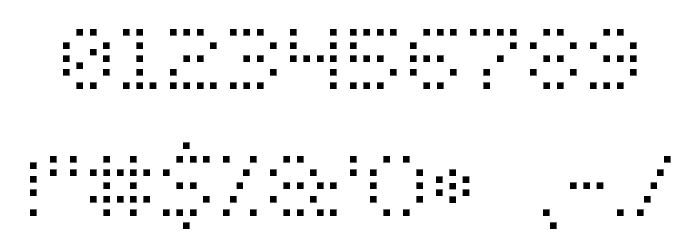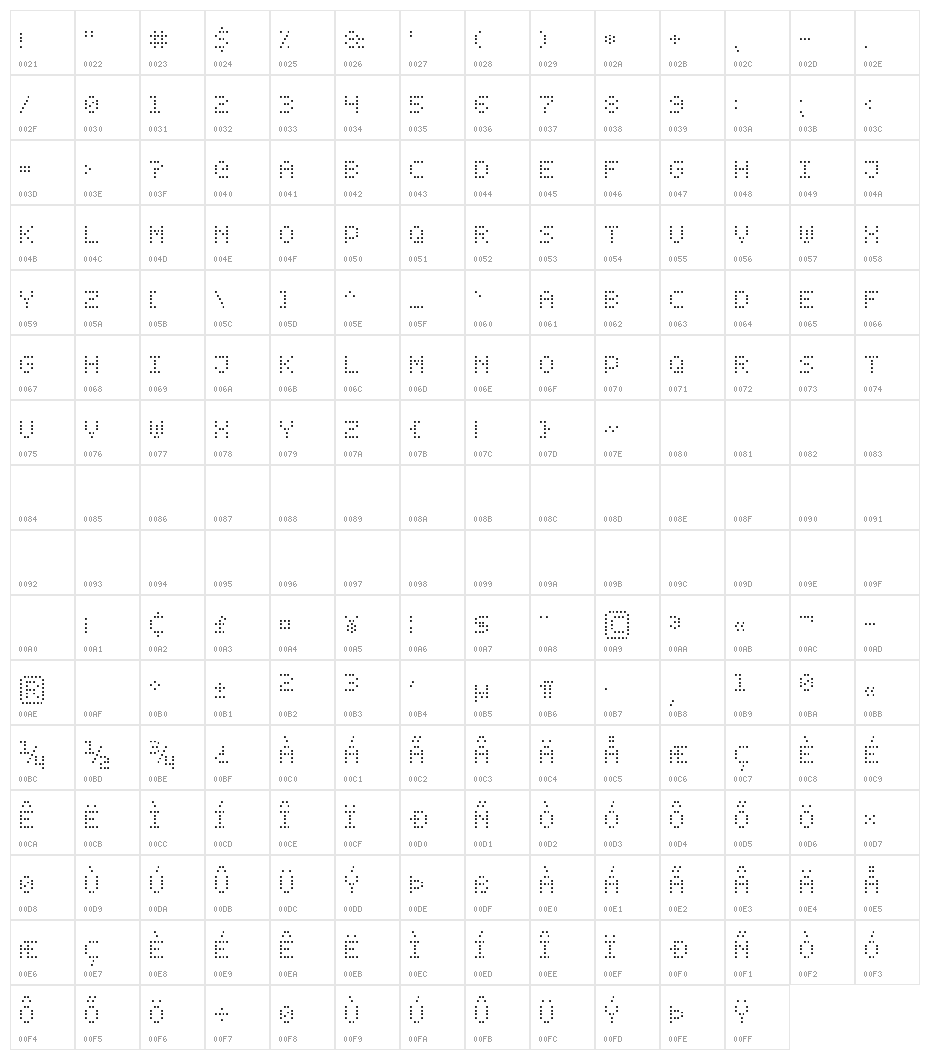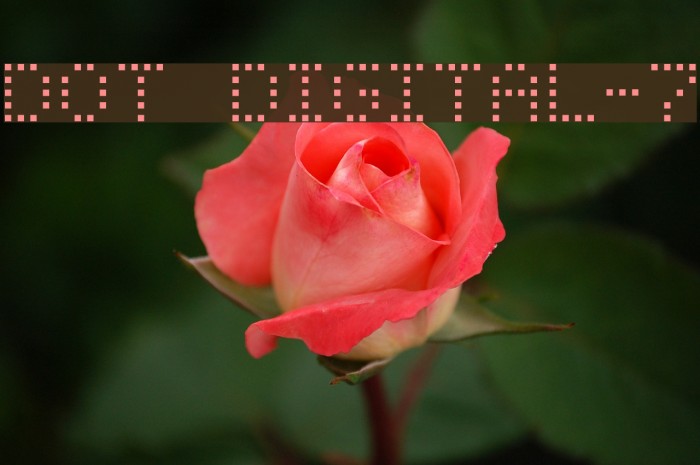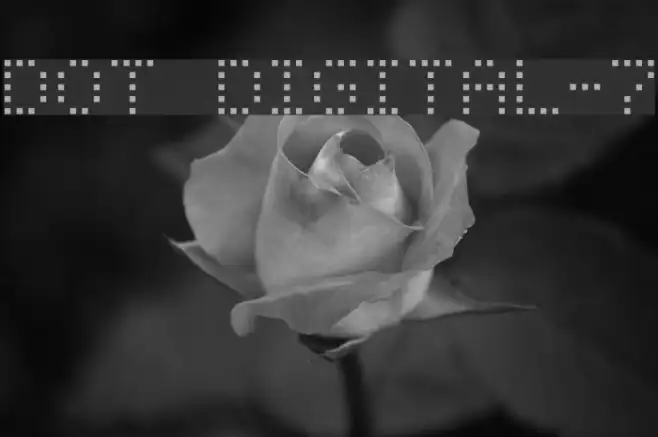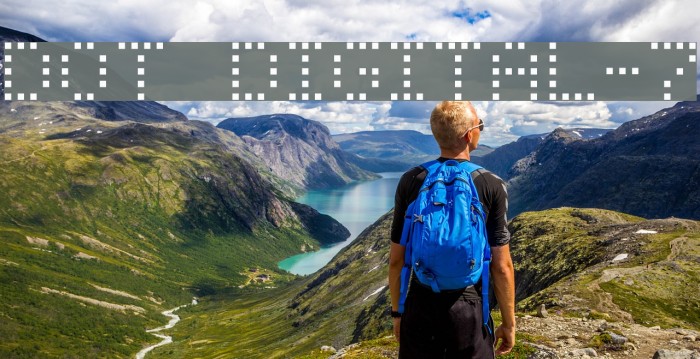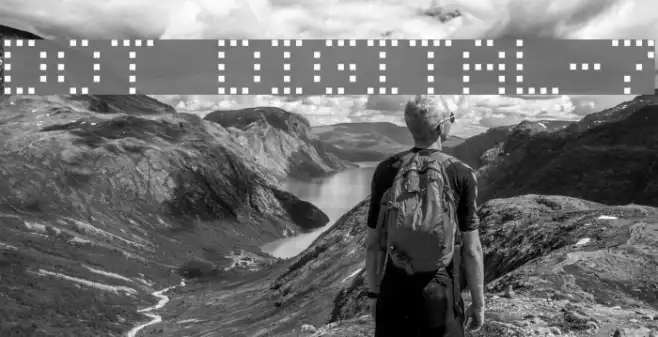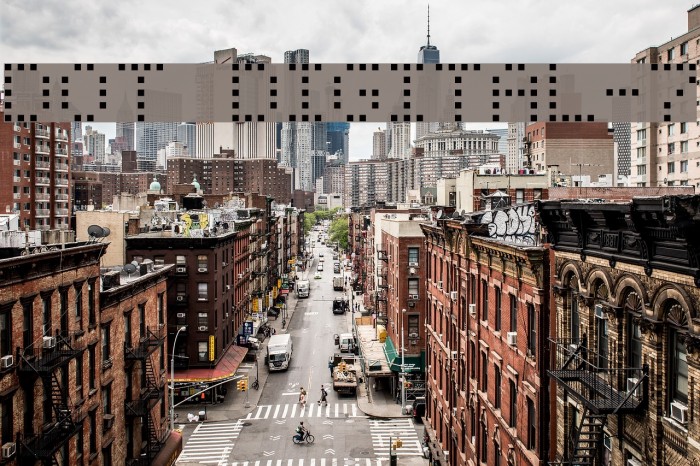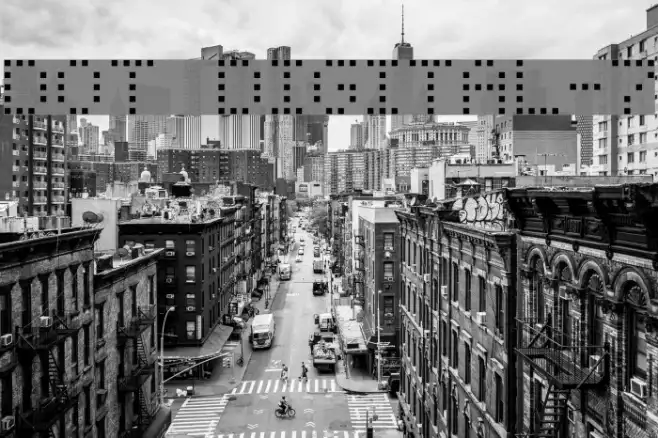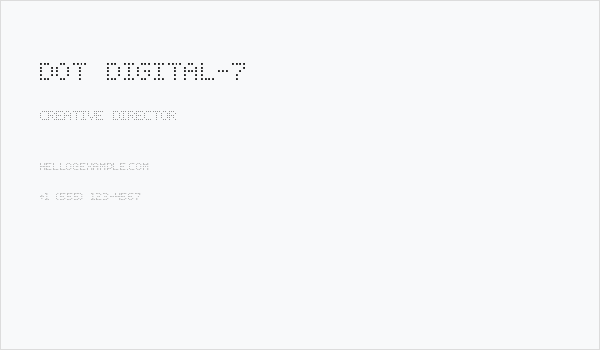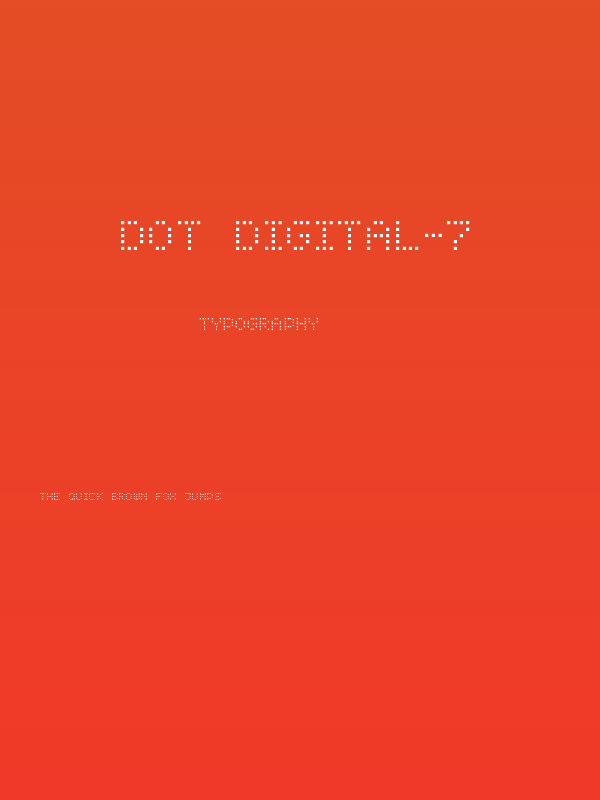
Dot Digital-7 Font
Dot Digital-7 Description
This font features a digital dot-matrix style, reminiscent of old digital displays and electronic devices. Each character is constructed from a grid of dots, creating a pixelated effect that is both retro and futuristic. The uniformity of the dots gives it a structured and mechanical appearance, making it ideal for digital-themed designs. The characters are evenly spaced, maintaining a consistent rhythm across the text. This font is perfect for projects that aim to evoke a sense of nostalgia or a technological aesthetic.
| Overall Style | Retro, Futuristic |
| Use Case | Headlines, Logos, Digital Displays |
| Proposed Projects | Ideal for digital displays, retro-themed designs, tech-related branding, and electronic device interfaces. |